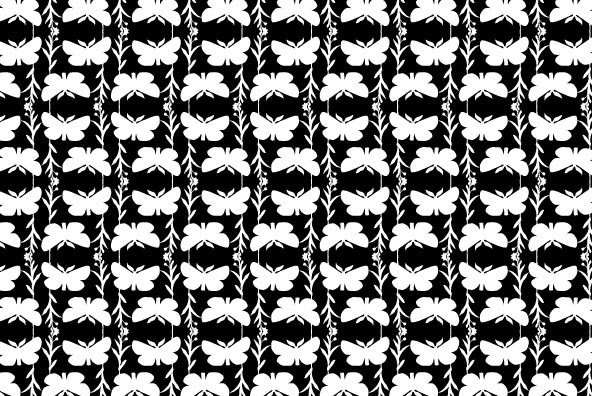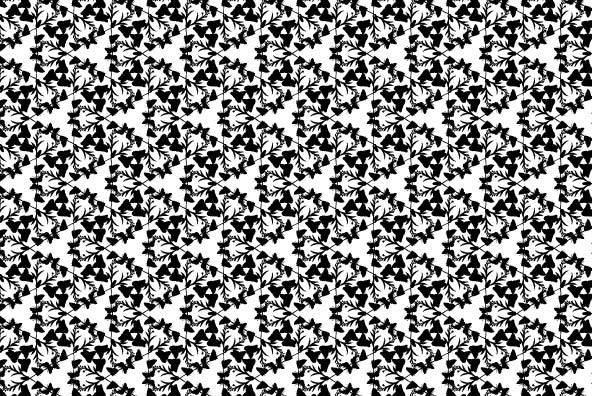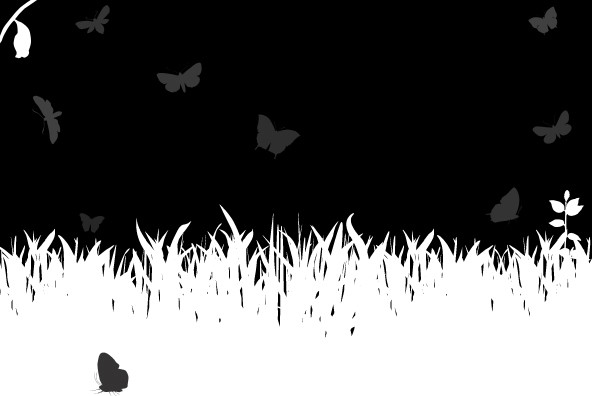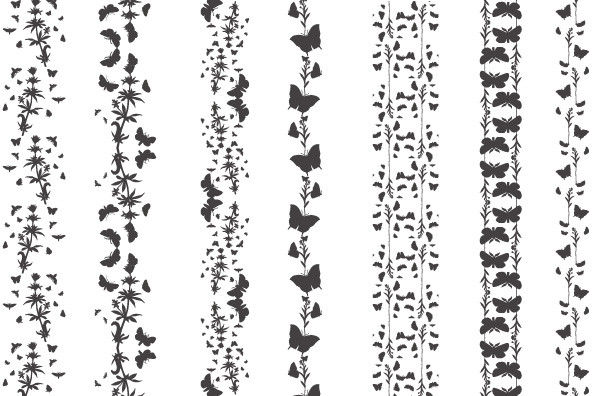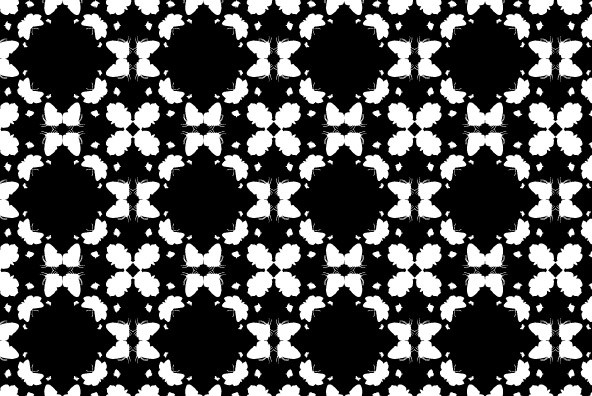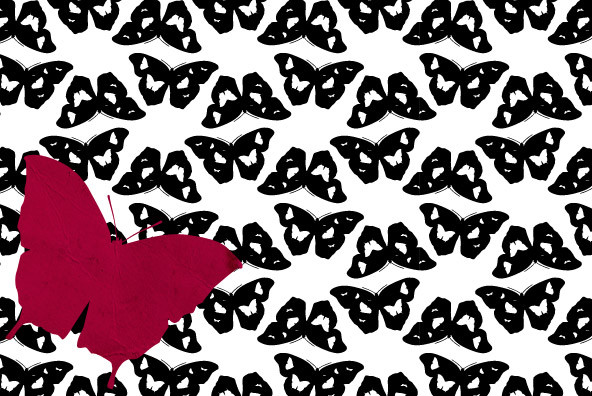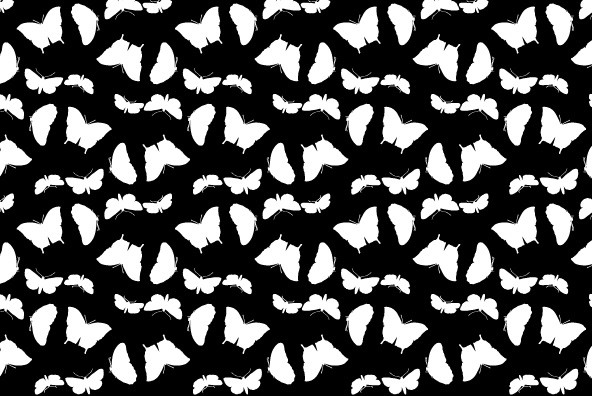
A pocketful of butterflies that automagically turns into patterns. This font counts 65 unique glyphs: 28 pattern tiles and 37 single illustrations.
A pocketful of butterflies that automagically turns into patterns. This font counts 65 unique glyphs: 28 pattern tiles and 37 single illustrations. They're easily accessed through the keyboard (numerals, upper & lowercase plus some punctuation marks), making it possible to design patterns even in simple text editors. Just make sure to set the leading/linespacing to the value same as the font size. Well, in fact some glyphs doesn't require such accuracy and let you play with leading and letterspacing, resulting in sort of chaotic patterns. Sort of... Butterfly effect!